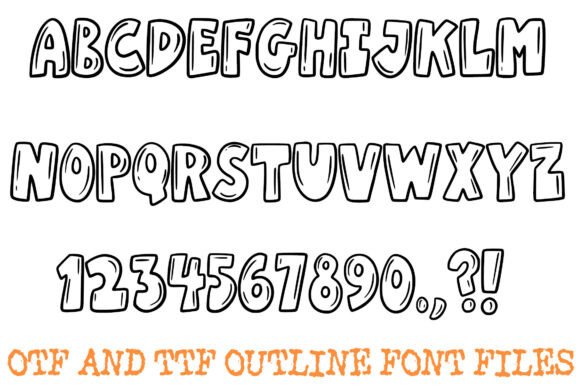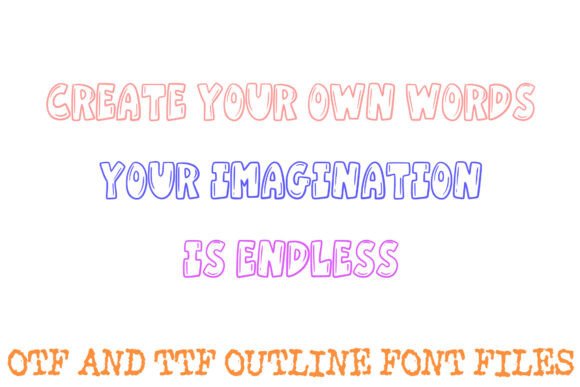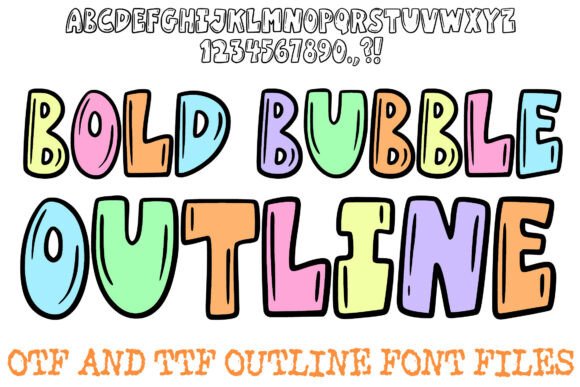
Make Your Message Pop with the Bold Bubble Outline Display Font
Are you tired of creating designs that blend into the background? Do you want to make a statement and grab the attention of your audience? Look no further than the Bold Bubble Outline Display Font! This versatile, hand-drawn display alphabet is perfect for designers and crafters who want to add a touch of fun and personality to their work.
What Makes the Bold Bubble Outline Font So Special?
The Bold Bubble Outline Font features thick, chunky characters with a clean, professional outline that ensures your text stands out on any background. The bold weight and smooth, rounded shapes provide maximum readability while maintaining a playful, artisan feel. This font is perfect for eye-catching headlines, fun classroom decor, personalized stickers, and high-impact branding for children’s products.
Why Your Designs Will Stand Out with the Bold Bubble Outline Font
There are several reasons why the Bold Bubble Outline Font is the perfect choice for designers and crafters who want to make their message pop. Here are just a few:
- Thick, Defined Outlines: The heavy black borders make every character jump off the page, perfect for layering over colors or patterns.
- Chunky Bubble Silhouette: The wide, rounded letterforms provide a friendly and approachable aesthetic for all ages.
- Hand-Drawn Authenticity: The font’s hand-drawn design gives it a unique, one-of-a-kind feel that sets it apart from more generic fonts.
The Bold Bubble Outline Font is versatile and can be used for a variety of design projects, including:
- Printable Worksheets: Add a fun and playful touch to your printable worksheets with the Bold Bubble Outline Font.
- Quirky Apparel Designs: Create eye-catching t-shirt designs, stickers, and other apparel with this bold and playful font.
- Vibrant Social Media Graphics: Make your social media graphics stand out with the Bold Bubble Outline Font.
- Classroom Decor: Add a touch of fun and personality to your classroom decor with this bold and playful font.
- Personalized Stickers: Create personalized stickers for kids and adults alike with the Bold Bubble Outline Font.
Tips for Using the Bold Bubble Outline Font
Here are a few tips for getting the most out of the Bold Bubble Outline Font:
- Experiment with Colors: Try pairing the Bold Bubble Outline Font with different colors and patterns to create a unique and eye-catching design.
- Mix and Match Fonts: Combine the Bold Bubble Outline Font with other fonts to create a bold and playful design.
- Use it for Headlines: The Bold Bubble Outline Font is perfect for headlines and titles, so be sure to use it to make a statement.
The Bold Bubble Outline Display Font is a versatile and fun font that is perfect for designers and crafters who want to add a touch of personality to their work. With its thick, defined outlines, chunky bubble silhouette, and hand-drawn authenticity, this font is sure to make your message pop. Whether you’re creating printable worksheets, quirky apparel designs, or vibrant social media graphics, the Bold Bubble Outline Font delivers a professional, polished look that captures attention instantly. So why wait? Try the Bold Bubble Outline Font today and see the difference it can make in your designs!